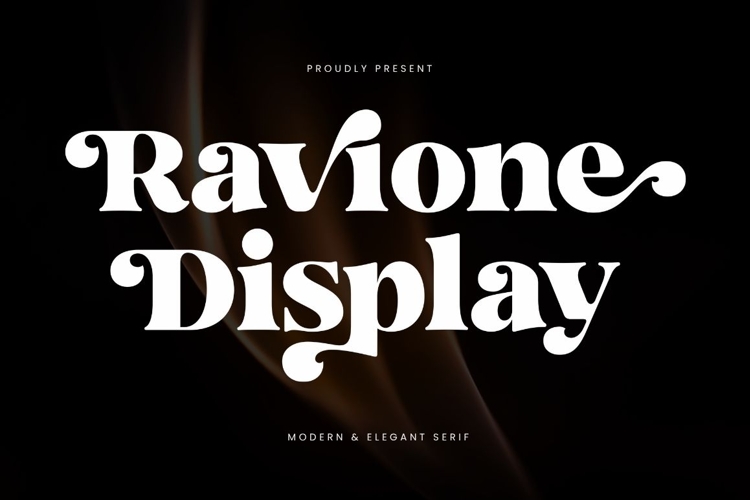
Ravione Display
Ravione Display – A Modern & Elegant Serif
Ravione Display is a stunning, modern and elegant serif font, defined by its beautifully exaggerated curves and thick, confident strokes that blend glamour with a hint of retro flair.
This captivating Ravione Display font features high-contrast weight distribution and playful terminals that curl inwards, giving it a distinctive, luxurious personality perfect for attention-grabbing headlines. Ideal for high-end fashion branding, editorial design, custom logo work, and sophisticated packaging, the Ravione Display typeface ensures your titles are both powerful and gracefully memorable. Use this modern and elegant serif to inject charisma and unparalleled style into any creative endeavor.
This type family comes in 4 styles:
– Regular
– Italic
– Condensed
– Condensed Italic
These four styles offer high flexibility for branding, editorial layouts, packaging, posters, and luxury design projects that demand a strong typographic personality. The condensed variants enhance dramatic presence and space efficiency, while the italic styles add a more expressive, dynamic feel.
– Headlines & titles
– Logos & branding
– Magazines & editorial design
– Posters, covers, and other display layouts
– Luxury design, fashion, and modern–classic aesthetics
Ravione Display stands as a refined and versatile choice—ideal for designers seeking a more sophisticated and character-rich visual expression.